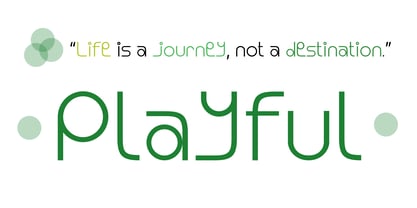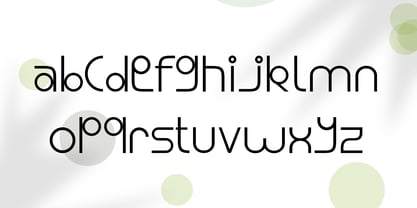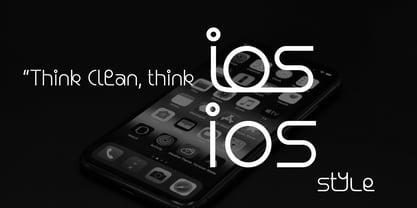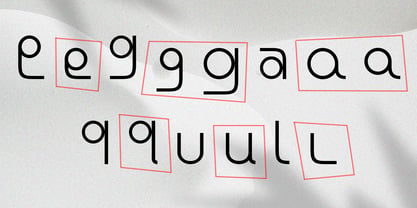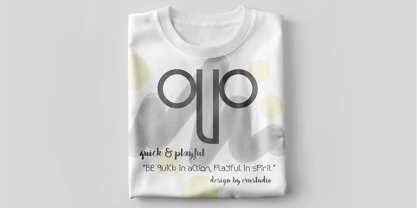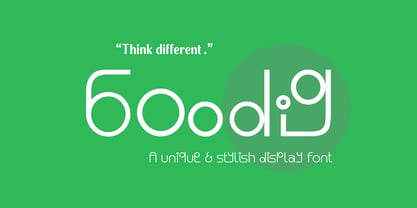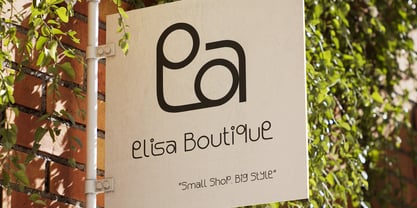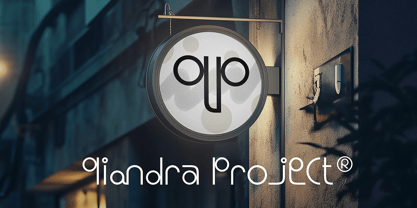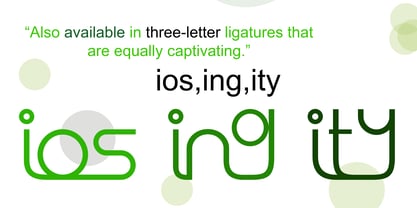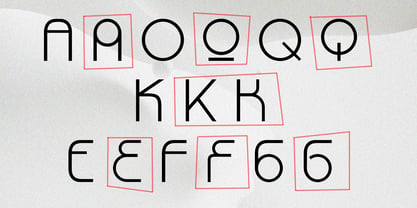
Goodigen
The Goodigen Font Family was designed by Erhan Untoro and published by EruStudio. Goodigen contains 1 styles. More about this family
Goodig is a modern geometric display font inspired by circular shapes and minimal line strokes. Its clean structure and unique ligature combinations create a stylish and futuristic look, making it perfect for logos, branding, posters, packaging, and digital displays. With its balance of playfulness and sophistication, Goodig brings a contemporary touch to any design project.